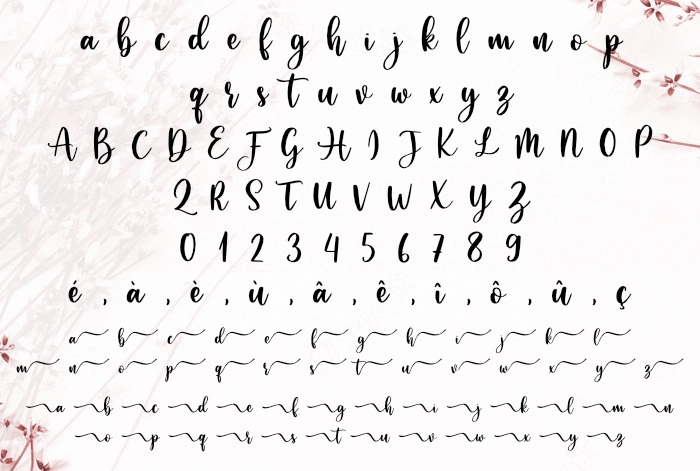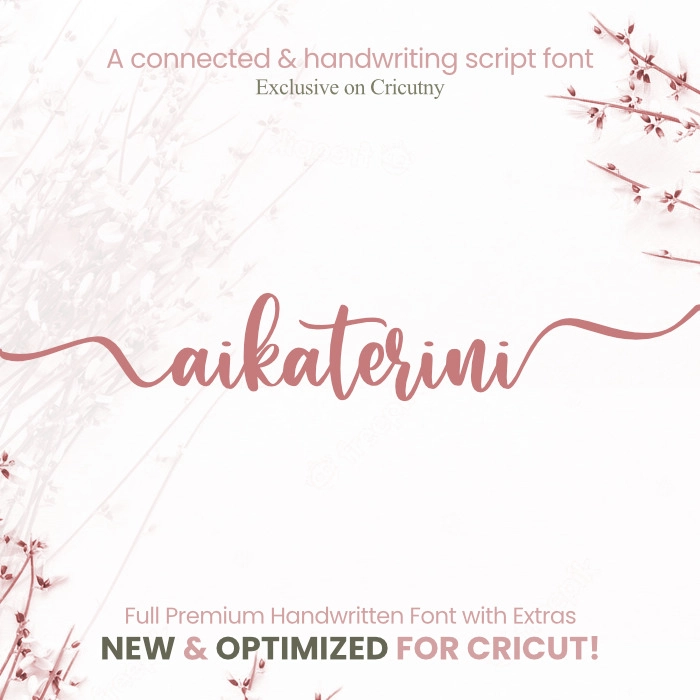
Handwriting script font
Meet Aikaterini, a connected, handwriting script font perfect for wedding invitation and sign board, elegant handwritten logos and branding, websites, social media quotes, and more! Included are a complete set of beginning and ending lowercase swashes.
This font is part of the optimized font for the cutting machine, including Cricut design space and all the others.
Good news! SVG file is not required anymore. With a single click, you can easily switch between regular and long tail letters.
Enjoy the convenience of calligraphy letters with French and Spanish accents.
In this example, I typed the word “hello” and created two different text boxes – one for “hell” and a second one for “o”.
I am currently selecting the letter “o” and choosing a font that features long-tailed letters, as seen below.
With just two clicks, we created a beautiful “hello” design with an elegant finishing letter. It was incredibly easy! Now, it’s your turn!
• The font is compatible with French and Spanish accents.